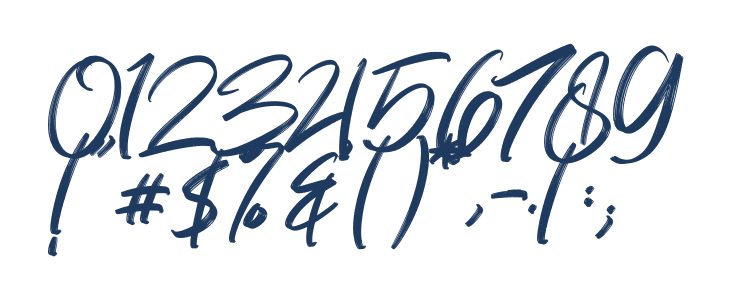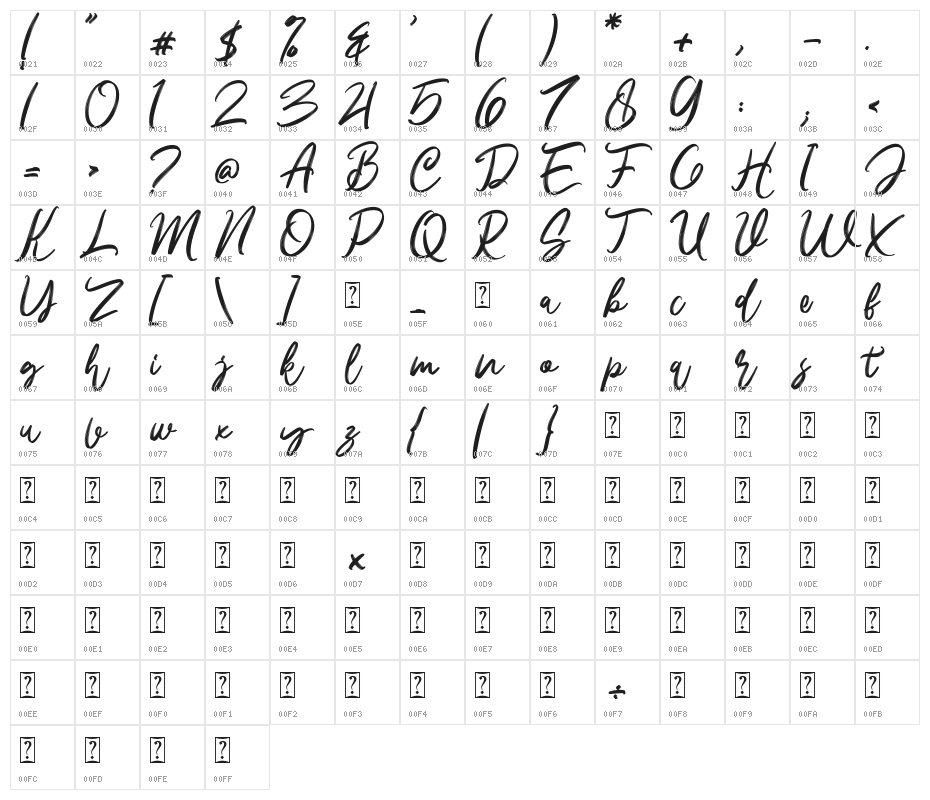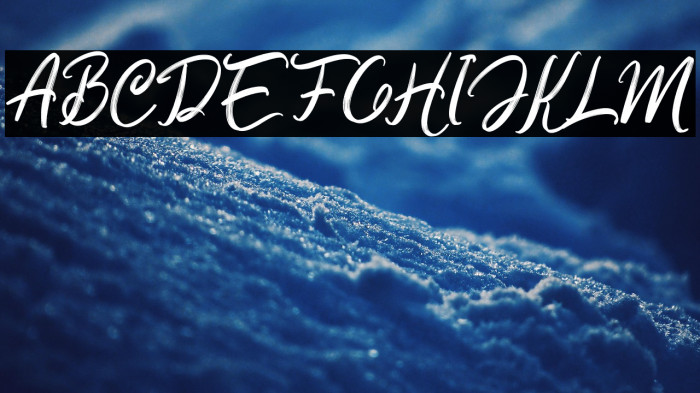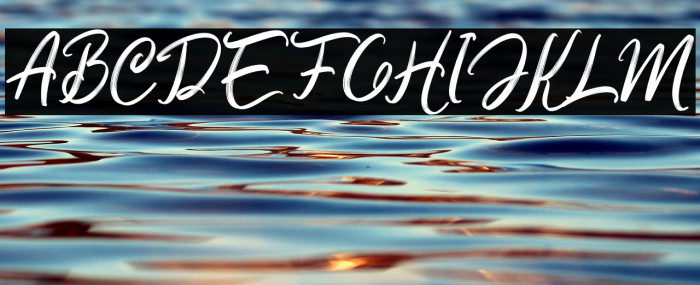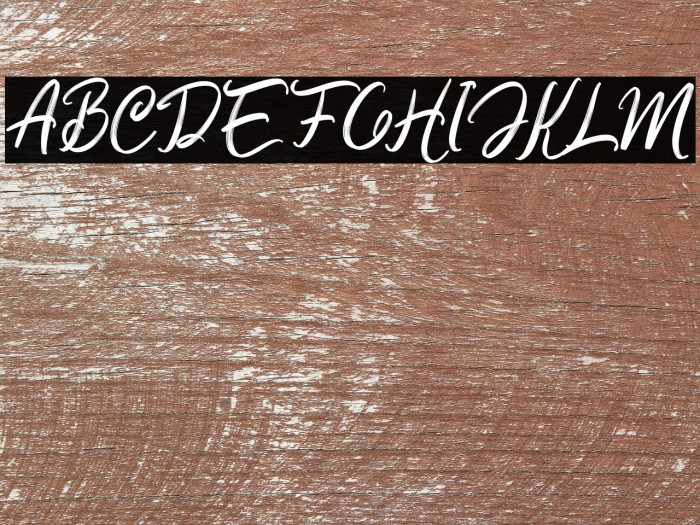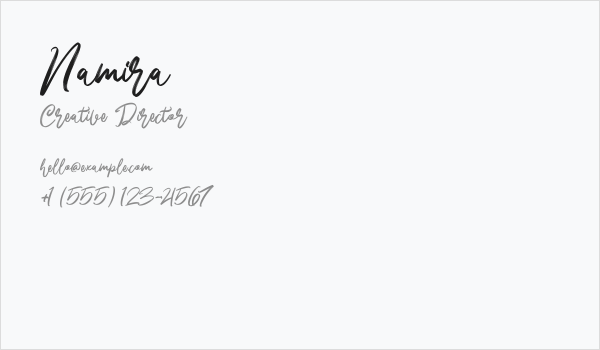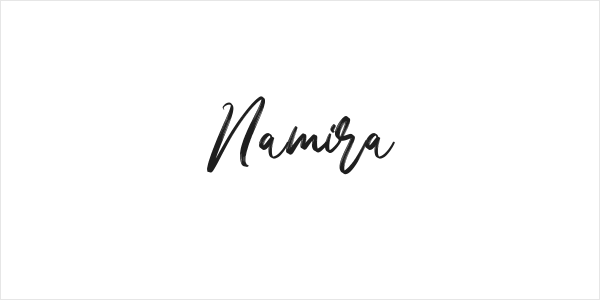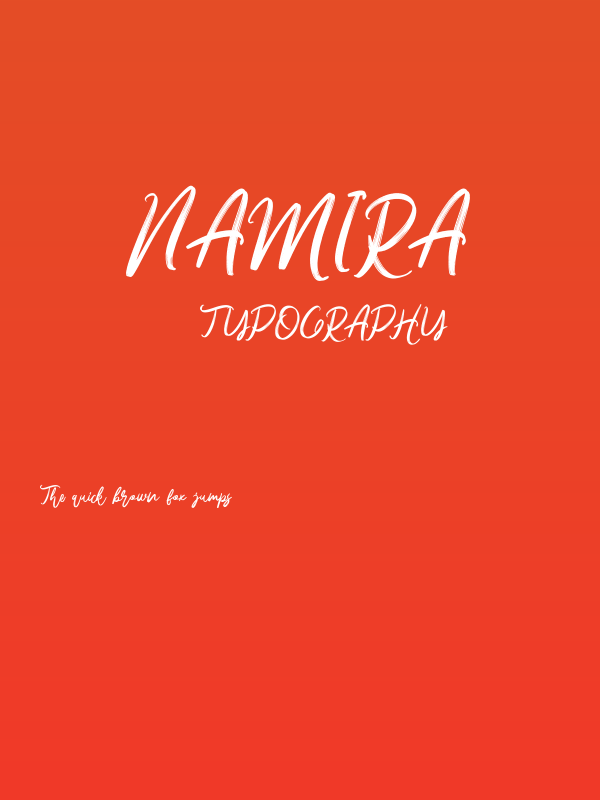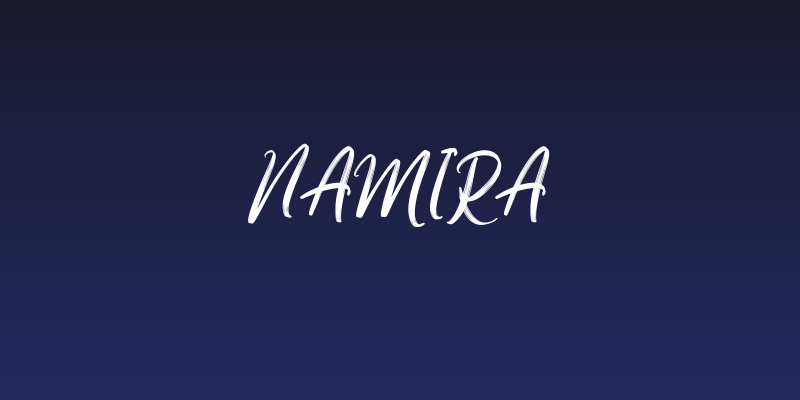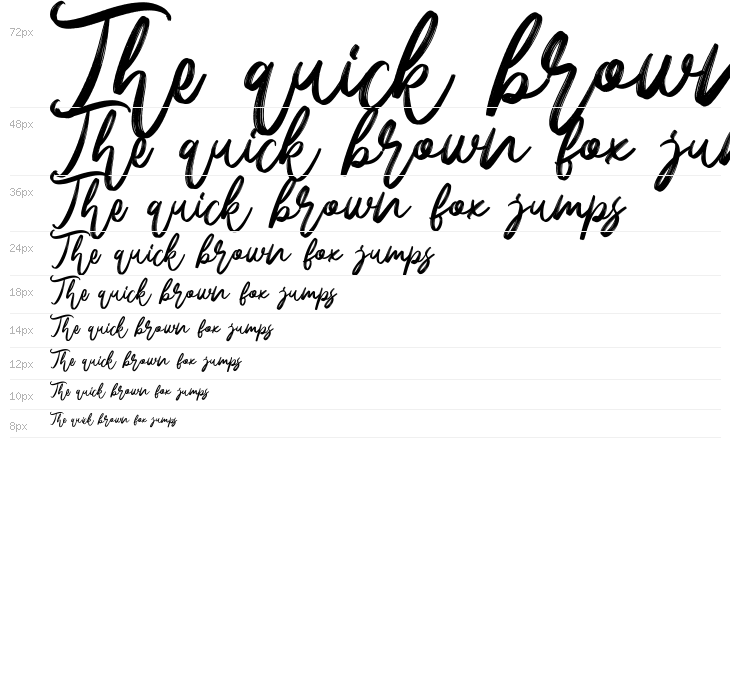
Namira Font
Namira Description
This font features a dynamic and expressive script style, characterized by its fluid, cursive strokes and a hand-drawn appearance. The letters are interconnected, creating a seamless flow that mimics natural handwriting. The uppercase letters are bold and prominent, while the lowercase letters maintain a consistent rhythm and elegance. The numerals and special characters are crafted with the same attention to detail, ensuring a cohesive look across all elements. The brush-like texture adds a touch of artistry, making it suitable for creative and decorative applications.
| Proposed Projects | Ideal for wedding invitations, greeting cards, branding projects, and artistic posters. |